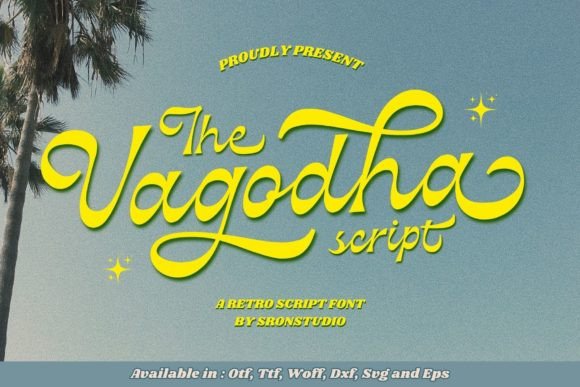
Welcome to the world of Vagodha, a retro reverse contrast script font that ignites creativity and captivates audiences with its unique charm. Embark on a journey through time as you explore the captivating beauty of this font, inspired by the elegance and nostalgia of vintage aesthetics.
Vagodha is not just a font; it's a masterpiece that transforms your words into works of art. Experience the allure of reverse contrast, where thin strokes become bold and thick strokes turn delicate, creating a mesmerizing visual dance that dances across your designs.
With Vagodha, you can effortlessly elevate your projects to new heights. This exquisite font is perfect for branding, logos, posters, invitations, social media posts, and any project that demands a touch of vintage allure. Let Vagodha transport you to an era of grace and sophistication, where every design tells a story.
Immerse yourself in the endless possibilities of Vagodha. Explore its meticulously crafted glyphs, each stroke carefully designed to evoke a sense of nostalgia and elegance. Discover the joy of creating logos that exude timeless appeal, posters that captivate with their retro charm, and invitations that invite guests into a world of enchantment.
Vagodha is more than just a font; it's an experience. Step into the realm of creativity and let your imagination run wild. Embrace the allure of the past as you bring your designs to life with the captivating beauty of Vagodha.